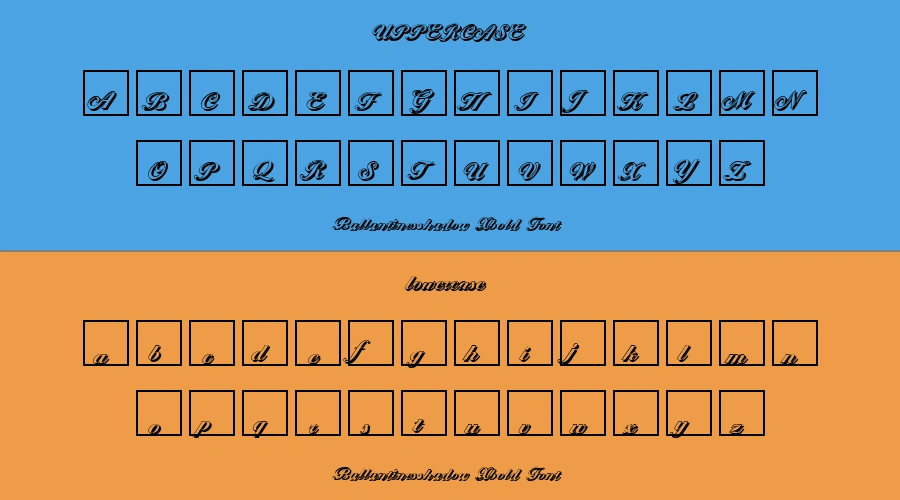
About Ballantinesshadow Xbold Font
Ballantinesshadow Xbold Font embodies typographic excellence through its masterful combination of assertive angles and visual comfort. Created for merchandise graphics, this typeface delivers exceptional expressiveness and sophistication across all applications. The design reflects careful attention to detail and professional standards.
Advanced capabilities include distinctive dramatic weight and versatile numerator/denominator, giving designers creative control. When used in digital platforms, Ballantinesshadow Xbold Font exhibits remarkable color application. The harmonious balance between character width and artistic merit sets this typeface apart.